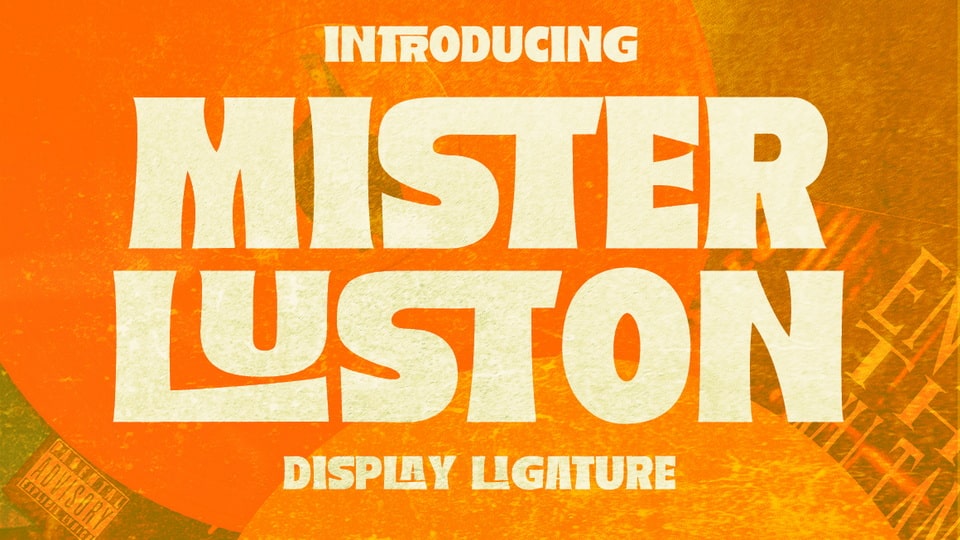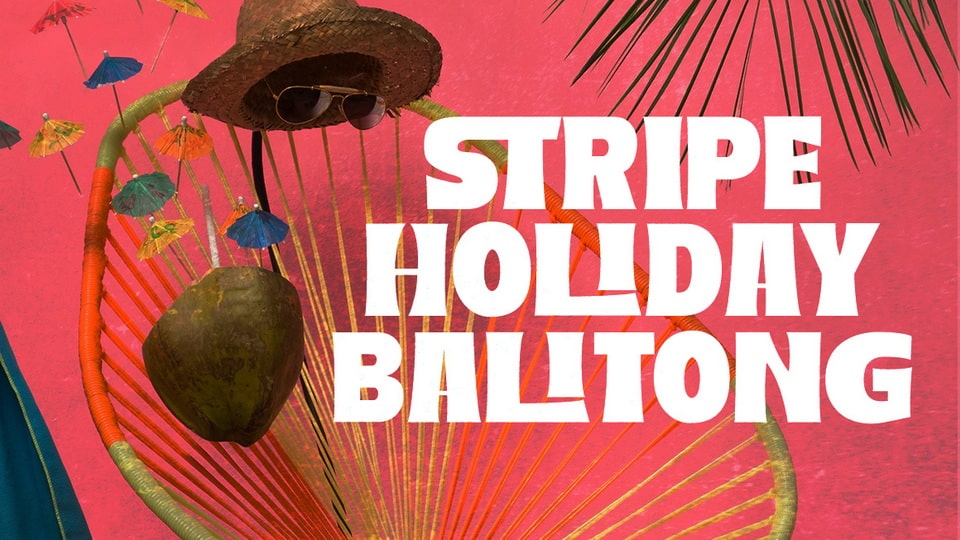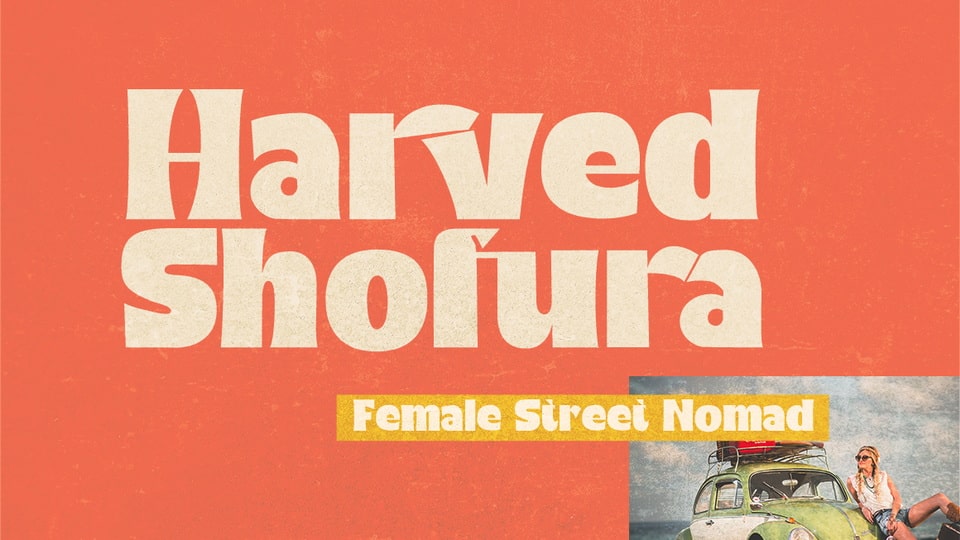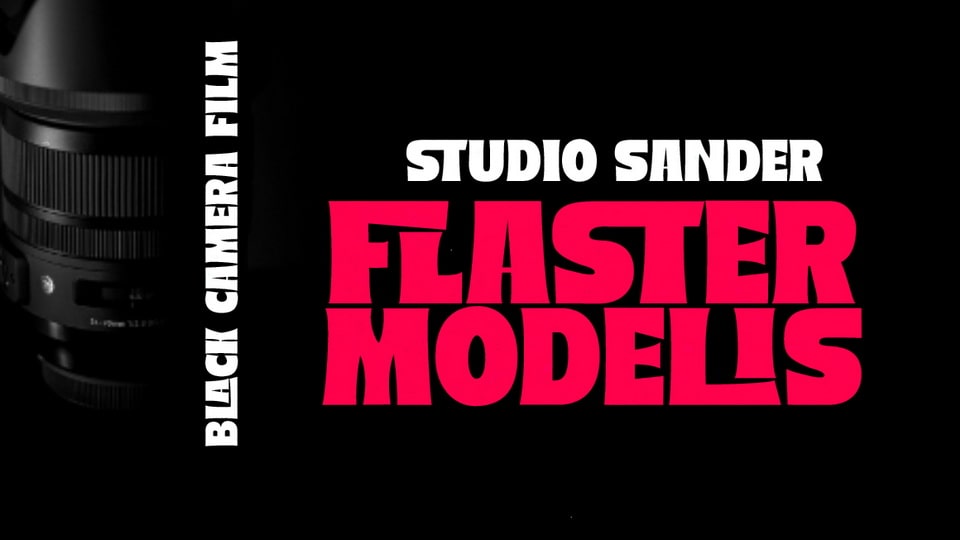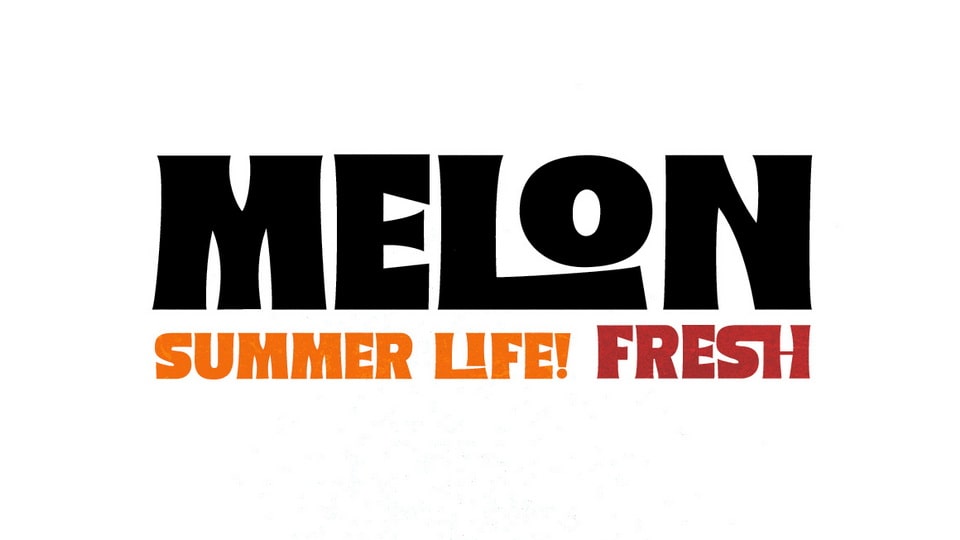
Mister Luston is a bold, retro display font with lots of ligatures and alternatives that will make your presentation or logo stand out! This font will make your project look retro, chic and neat.
You can use this font for your posters, events or social media posts. Get your nostalgic feeling with this font character!